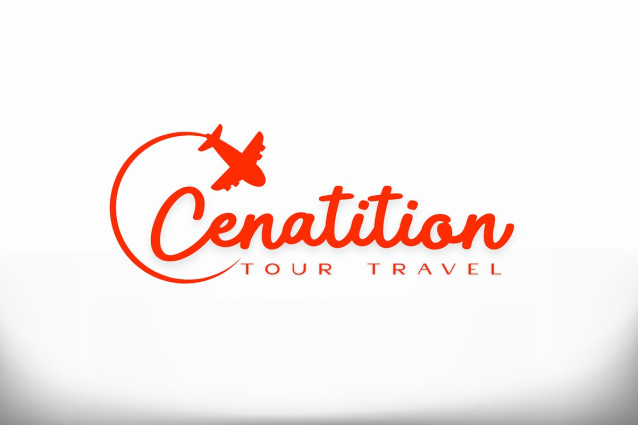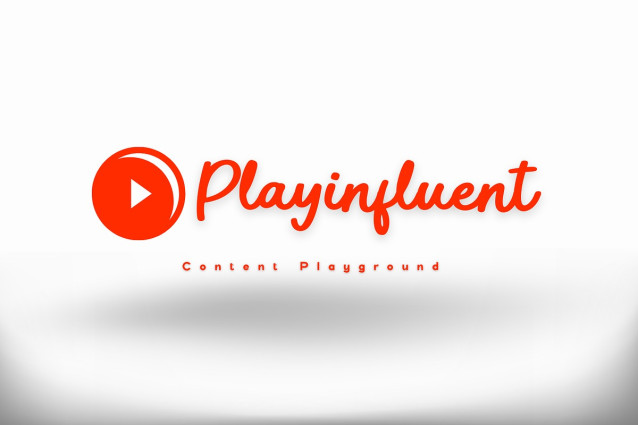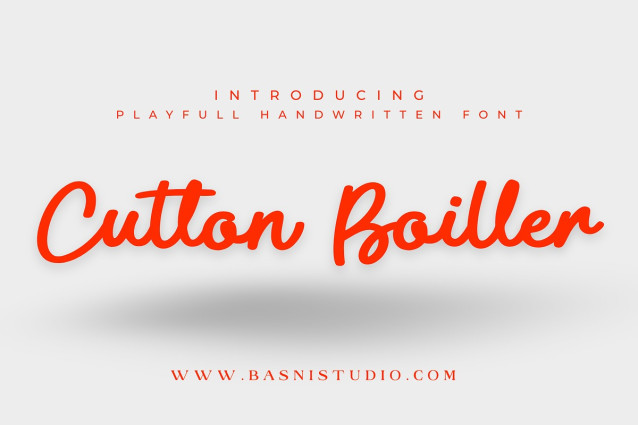
Cutton Boiller Font
Cutton Boiller Handwritten Font – your new creative BFF! This font is packed with personality, designed to add a dash of whimsy and a whole lot of charm to everything you create. Whether you’re designing for fun, crafting invitations, or spicing up your social media posts, Cutton Boiller is here to make your words POP!